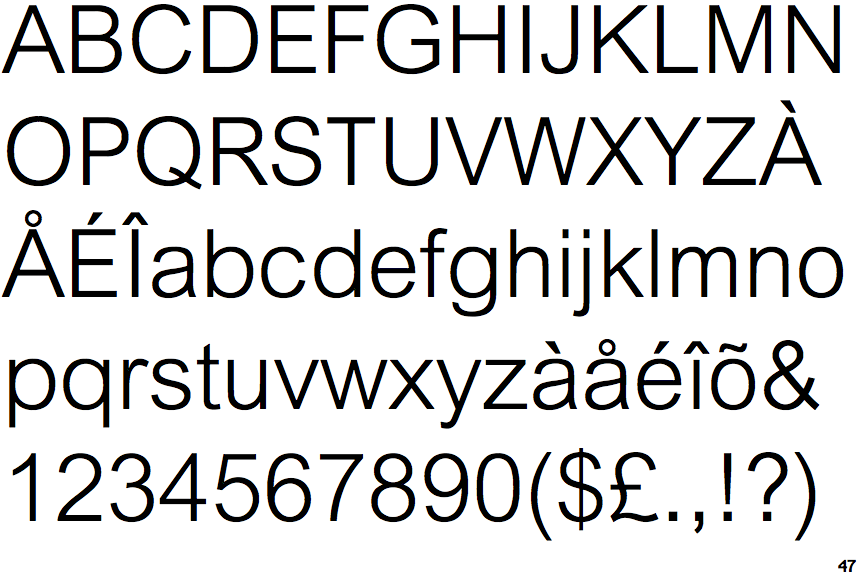
Arial Light Font
Arial Light Font - Web arial was designed for monotype in 1982 by robin nicholas and patricia saunders. Web download arial® light font. Arial was designed for monotype in 1982 by robin nicholas and patricia saunders a. Every font is free to download! Click to find the best 14 free fonts in the arial light style. A contemporary sans serif design, arial. Web looking for arial light fonts?
Every font is free to download! Web looking for arial light fonts? Web arial was designed for monotype in 1982 by robin nicholas and patricia saunders. A contemporary sans serif design, arial. Click to find the best 14 free fonts in the arial light style. Web download arial® light font. Arial was designed for monotype in 1982 by robin nicholas and patricia saunders a.
A contemporary sans serif design, arial. Web arial was designed for monotype in 1982 by robin nicholas and patricia saunders. Web download arial® light font. Arial was designed for monotype in 1982 by robin nicholas and patricia saunders a. Web looking for arial light fonts? Click to find the best 14 free fonts in the arial light style. Every font is free to download!
Web download arial® light font. Every font is free to download! Arial was designed for monotype in 1982 by robin nicholas and patricia saunders a. Click to find the best 14 free fonts in the arial light style. Web looking for arial light fonts?
Web looking for arial light fonts? A contemporary sans serif design, arial. Web download arial® light font. Click to find the best 14 free fonts in the arial light style. Arial was designed for monotype in 1982 by robin nicholas and patricia saunders a.
Web download arial® light font. Click to find the best 14 free fonts in the arial light style. Web arial was designed for monotype in 1982 by robin nicholas and patricia saunders. Every font is free to download! Arial was designed for monotype in 1982 by robin nicholas and patricia saunders a.
Web looking for arial light fonts? Web arial was designed for monotype in 1982 by robin nicholas and patricia saunders. Click to find the best 14 free fonts in the arial light style. Web download arial® light font. Every font is free to download!
Every font is free to download! Web arial was designed for monotype in 1982 by robin nicholas and patricia saunders. A contemporary sans serif design, arial. Web looking for arial light fonts? Web download arial® light font.
Web looking for arial light fonts? Every font is free to download! Web download arial® light font. Web arial was designed for monotype in 1982 by robin nicholas and patricia saunders. Arial was designed for monotype in 1982 by robin nicholas and patricia saunders a.
Click to find the best 14 free fonts in the arial light style. Web download arial® light font. Every font is free to download! Web arial was designed for monotype in 1982 by robin nicholas and patricia saunders. Web looking for arial light fonts?
A contemporary sans serif design, arial. Click to find the best 14 free fonts in the arial light style. Web looking for arial light fonts? Web arial was designed for monotype in 1982 by robin nicholas and patricia saunders. Arial was designed for monotype in 1982 by robin nicholas and patricia saunders a.
Web looking for arial light fonts? A contemporary sans serif design, arial. Web download arial® light font. Every font is free to download! Web arial was designed for monotype in 1982 by robin nicholas and patricia saunders.
Click to find the best 14 free fonts in the arial light style. Web arial was designed for monotype in 1982 by robin nicholas and patricia saunders. A contemporary sans serif design, arial. Web looking for arial light fonts? Arial was designed for monotype in 1982 by robin nicholas and patricia saunders a.
A Contemporary Sans Serif Design, Arial.
Web arial was designed for monotype in 1982 by robin nicholas and patricia saunders. Arial was designed for monotype in 1982 by robin nicholas and patricia saunders a. Every font is free to download! Web looking for arial light fonts?